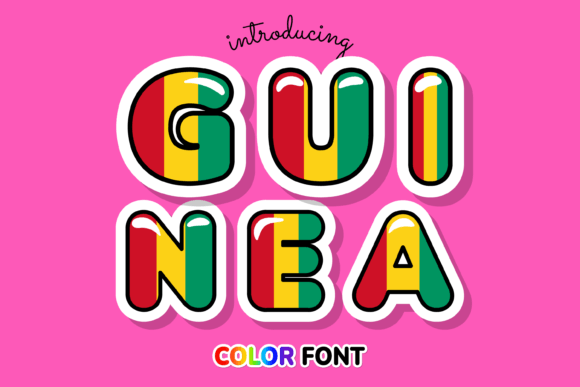
Imagine transforming your creative visions into a vibrant symphony of colors with Guinea Font, a color font that radiates the vivacious spirit of Guinea's flag. Explore a world of endless possibilities where your designs come alive with an array of captivating hues.
Guinea Font is not just a mere collection of letters and characters; it's a gateway to unleashing your artistic flair and expressing your individuality. Whether you're a seasoned designer or just starting your creative journey, Guinea Font is your ultimate companion.
With Guinea Font, you'll discover a font that's more than just aesthetically pleasing – it's a tool that ignites your imagination and empowers you to create designs that speak volumes. Whether you're working on custom designs, DIY crafts, or any project that demands a touch of elegance, Guinea Font will effortlessly elevate your creations.
Embrace the versatility of Guinea Font and watch as your designs transcend the ordinary. From eye-catching logos and branding materials to personalized invitations and social media graphics, Guinea Font adapts seamlessly to your creative needs. Its vibrant colors inject life into your designs, making them stand out from the crowd.
Experience the magic of Guinea Font today and embark on a journey of artistic exploration. Transform your designs into colorful masterpieces and leave a lasting impression on your audience. Guinea Font is more than just a font; it's a gateway to a world of unlimited creativity.